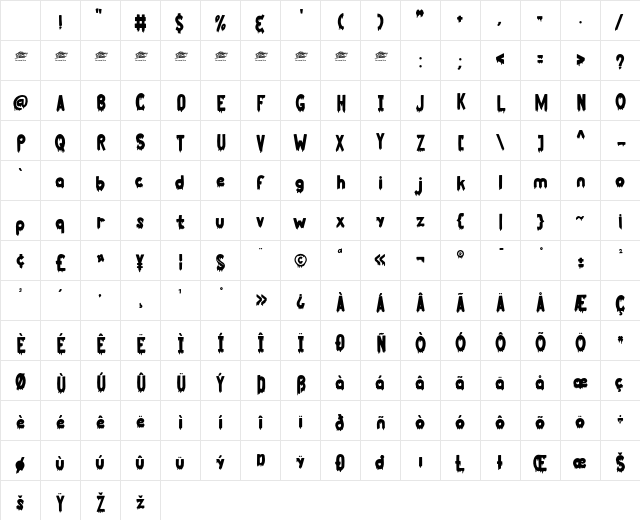
Smelly Blood - Personal Use carries an unsettling edge - its distorted letterforms are built to unsettle, perfectly suited to horror, Halloween, and dark creative work.
Font Pairing: Pair with a clean neutral sans-serif for body copy to let Smelly Blood - Personal Use's character lead without overwhelming the composition.
Pro Tip: Use Smelly Blood - Personal Use at larger display sizes for maximum impact. Consider generous tracking to let the disturbing character of each letterform breathe.